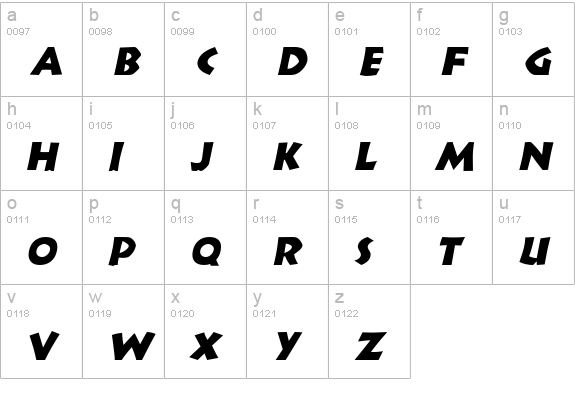
Indy Italic Font Details
Indy Italic is a distinctive, italic variant in the Indy typeface family \xE2\x80\x94 well suited to design and typography projects.
Indy Italic font is a stunning and versatile typeface that exudes elegance and sophistication. Its sleek and curvaceous letterforms create a sense of fluidity and grace, making it the perfect choice for projects that require a touch of sophistication. The flowing lines of Indy Italic effortlessly combine traditional elements with a contemporary flair, resulting in a font that is both timeless and modern. Its unique italic style adds a sense of dynamism and movement, making it ideal for adding emphasis or creating eye-catching headlines. Designed with meticulous attention to detail, Indy Italic offers a harmonious balance between legibility and artistic expression. Each letter has been carefully crafted to ensure clarity and readability, while still retaining its distinctive personality. One of the most remarkable aspects of Indy Italic font is that it is available for free. That's right, this exceptional typeface can be freely downloaded at FontsMarket.com. Whether you are a professional designer or a casual user, you can now effortlessly incorporate the beauty and elegance of Indy Italic font into your projects without any cost. Indy Italic font is suitable for a wide range of applications, including branding, editorial design, packaging, and more. Its versatility allows it to seamlessly adapt to various design styles, from minimalistic and clean to bold and expressive. So why wait? Download Indy Italic font today from FontsMarket.com and elevate your designs to new heights. Experience the timeless beauty and versatility of this exceptional typeface, and unleash your creativity with this freely available font.